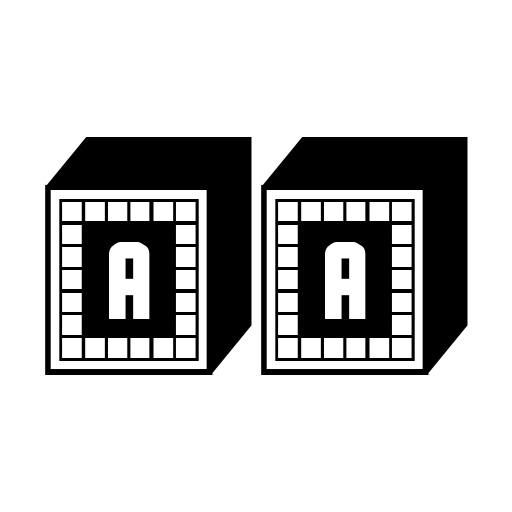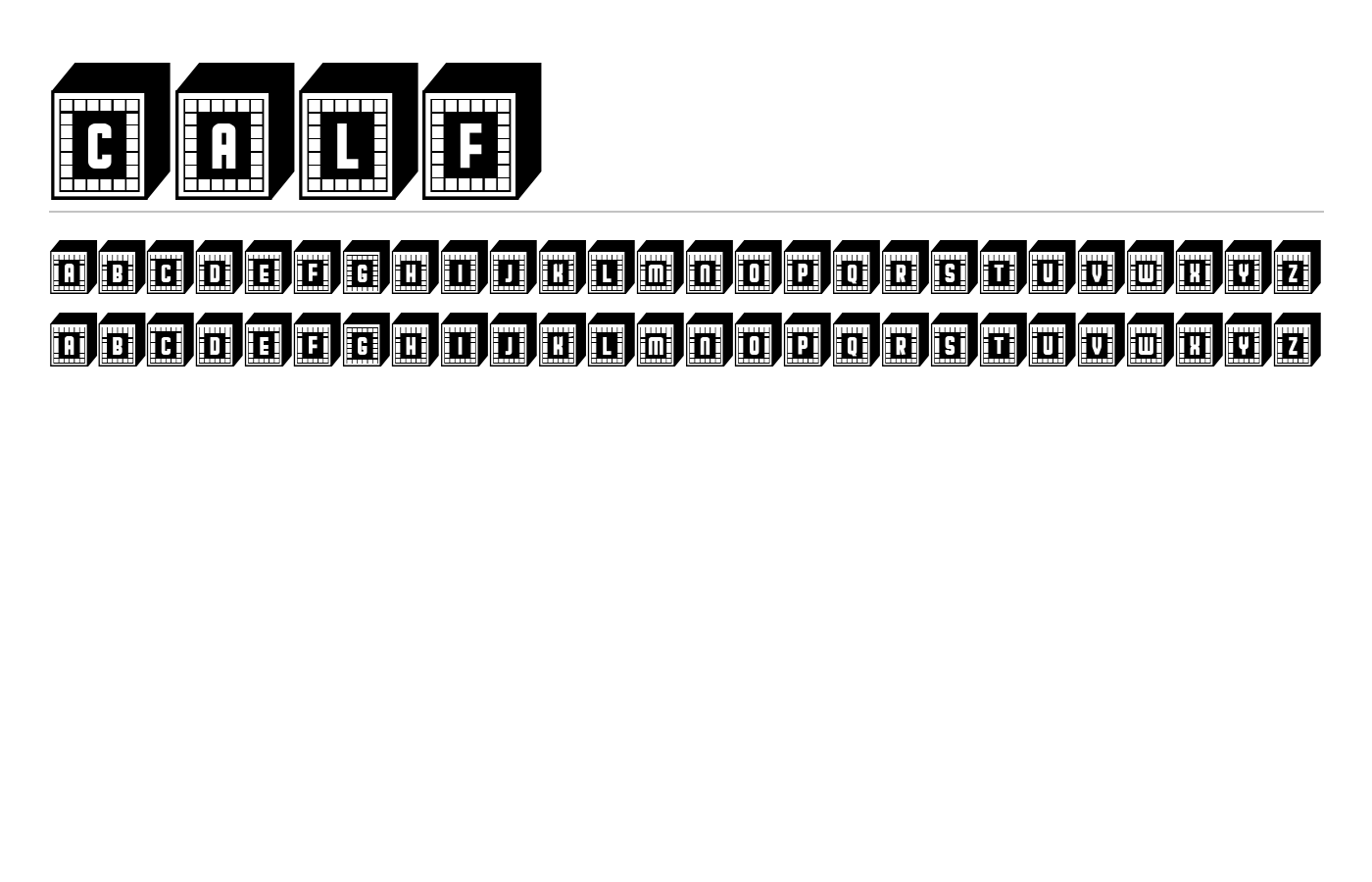
Calf Font is a bold, condensed sans serif display typeface with a strong geometric feel and a distinctive three-dimensional shadow effect that adds depth and impact. Its uppercase-only design with blocky letterforms and grid-inspired decorations gives it a playful, retro vibe ideal for eye-catching headlines, packaging, and branding that seeks a vintage yet modern appeal. This font works best in large sizes where its unique style can shine and grab attention.
Calf Font
About Calf Font